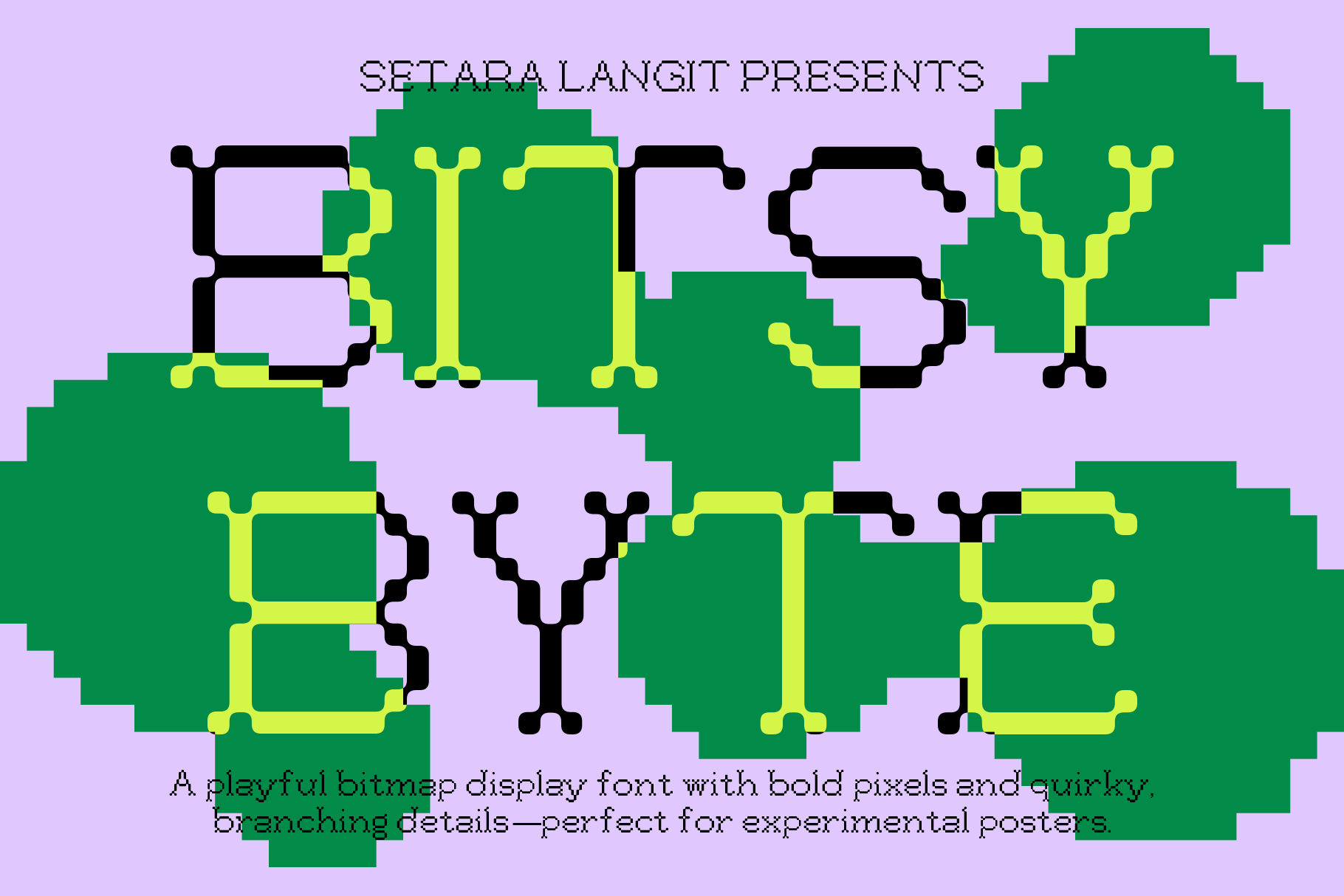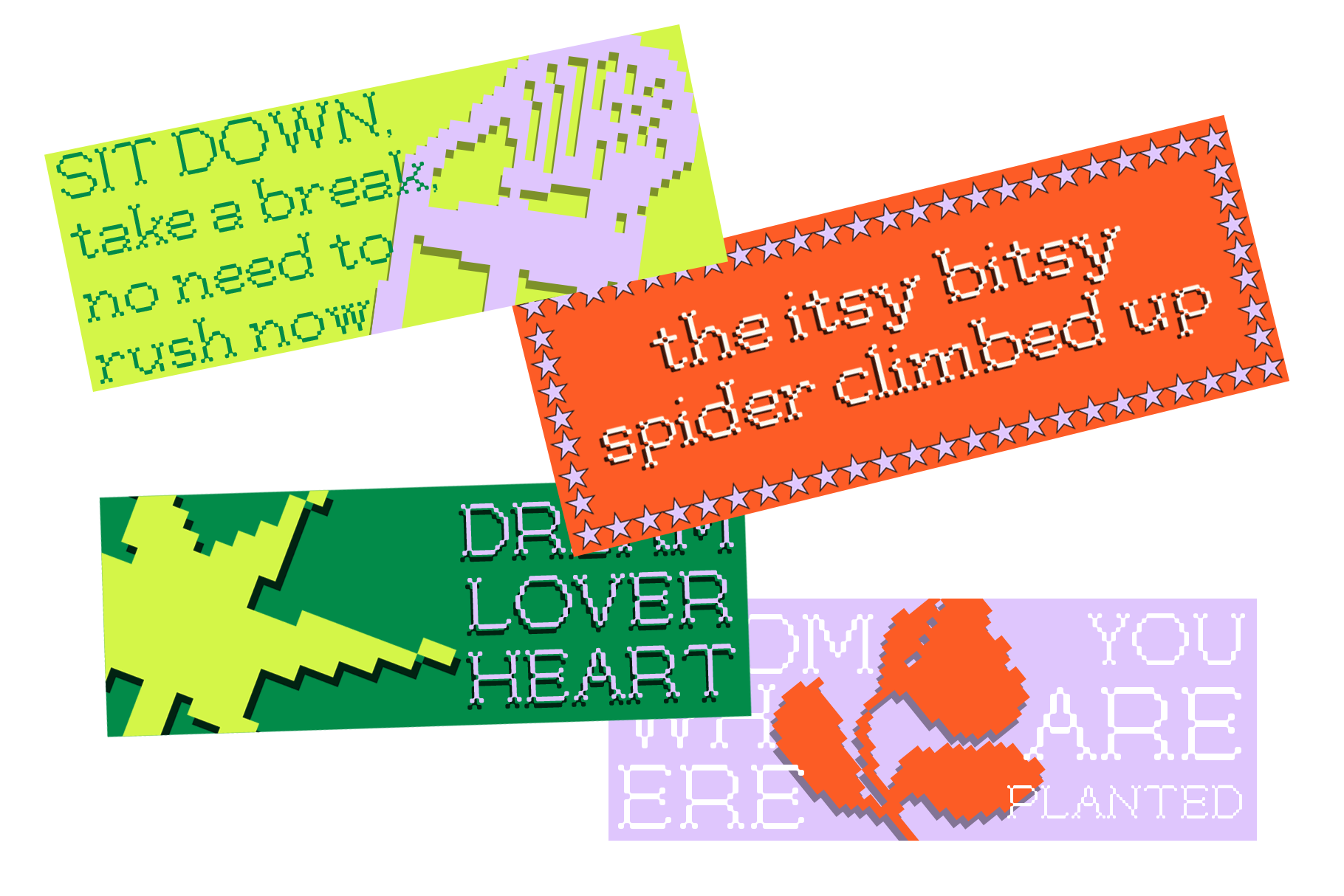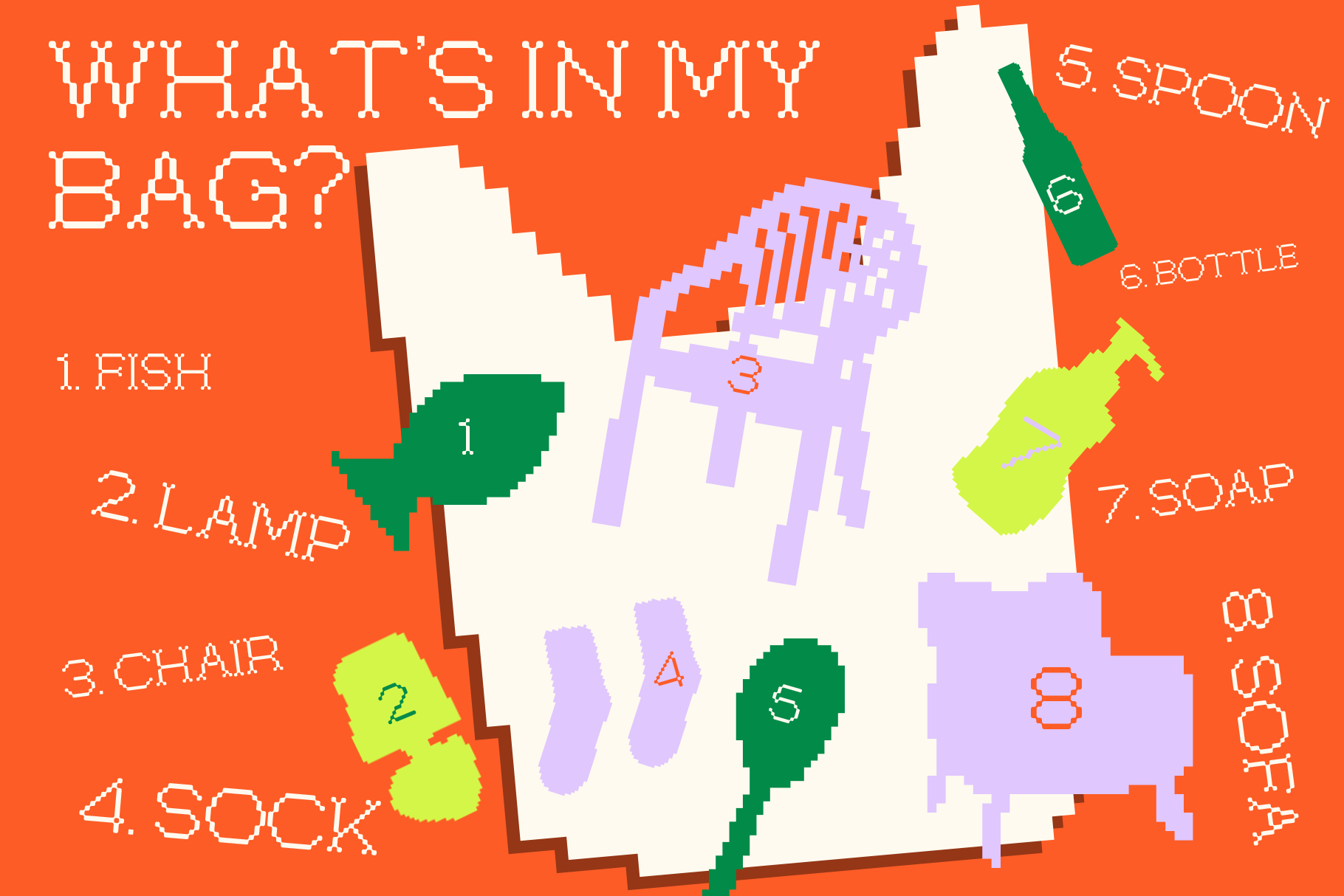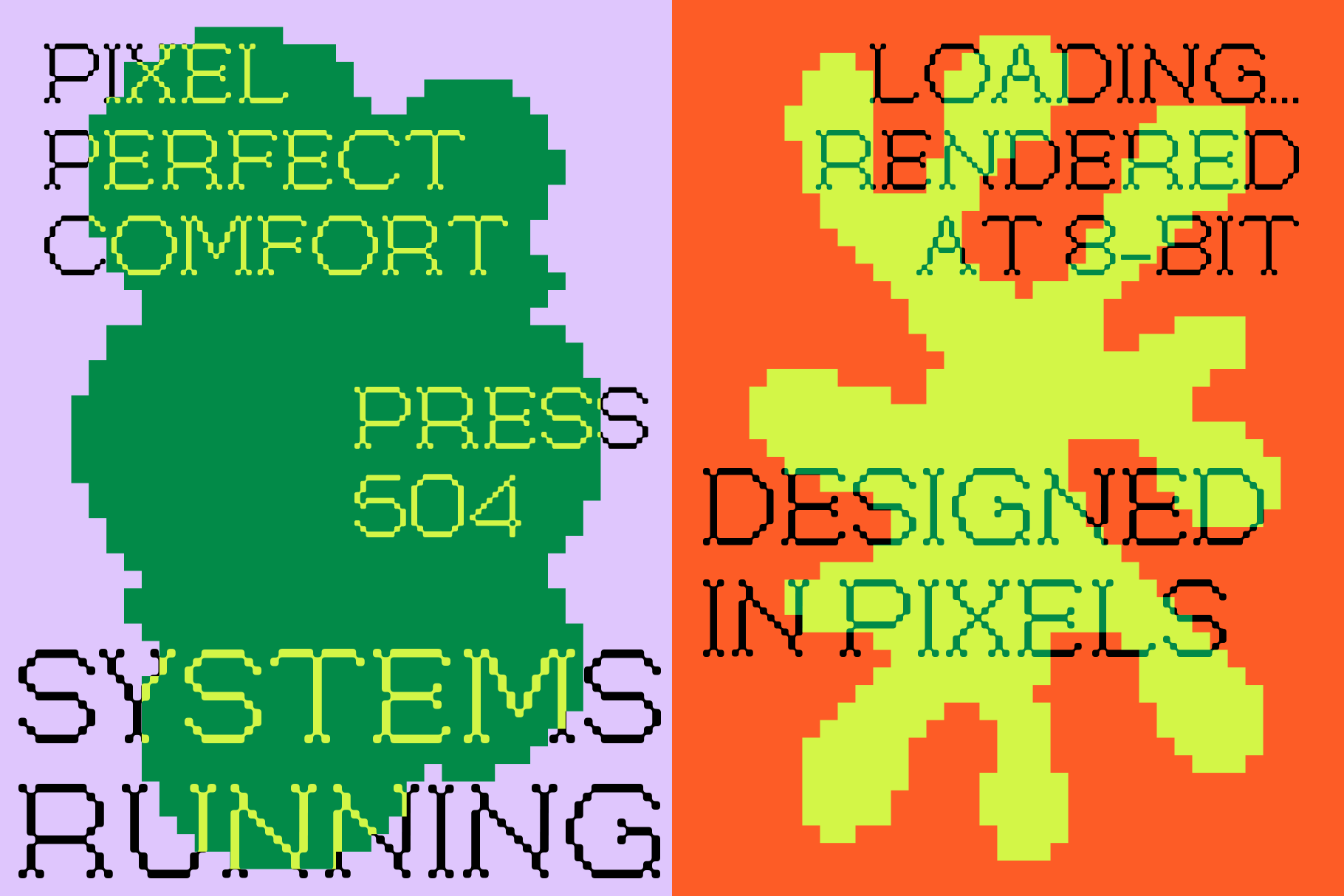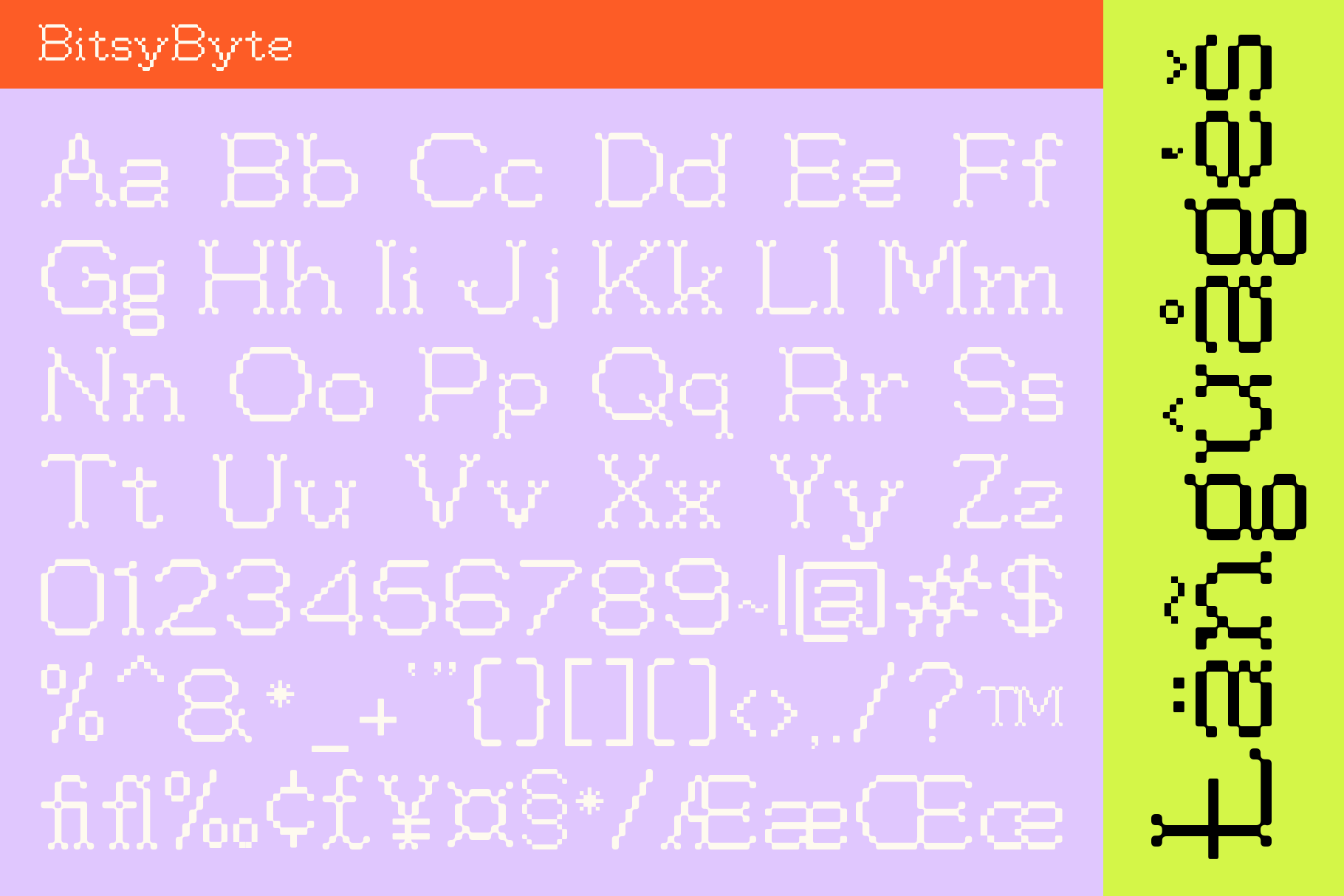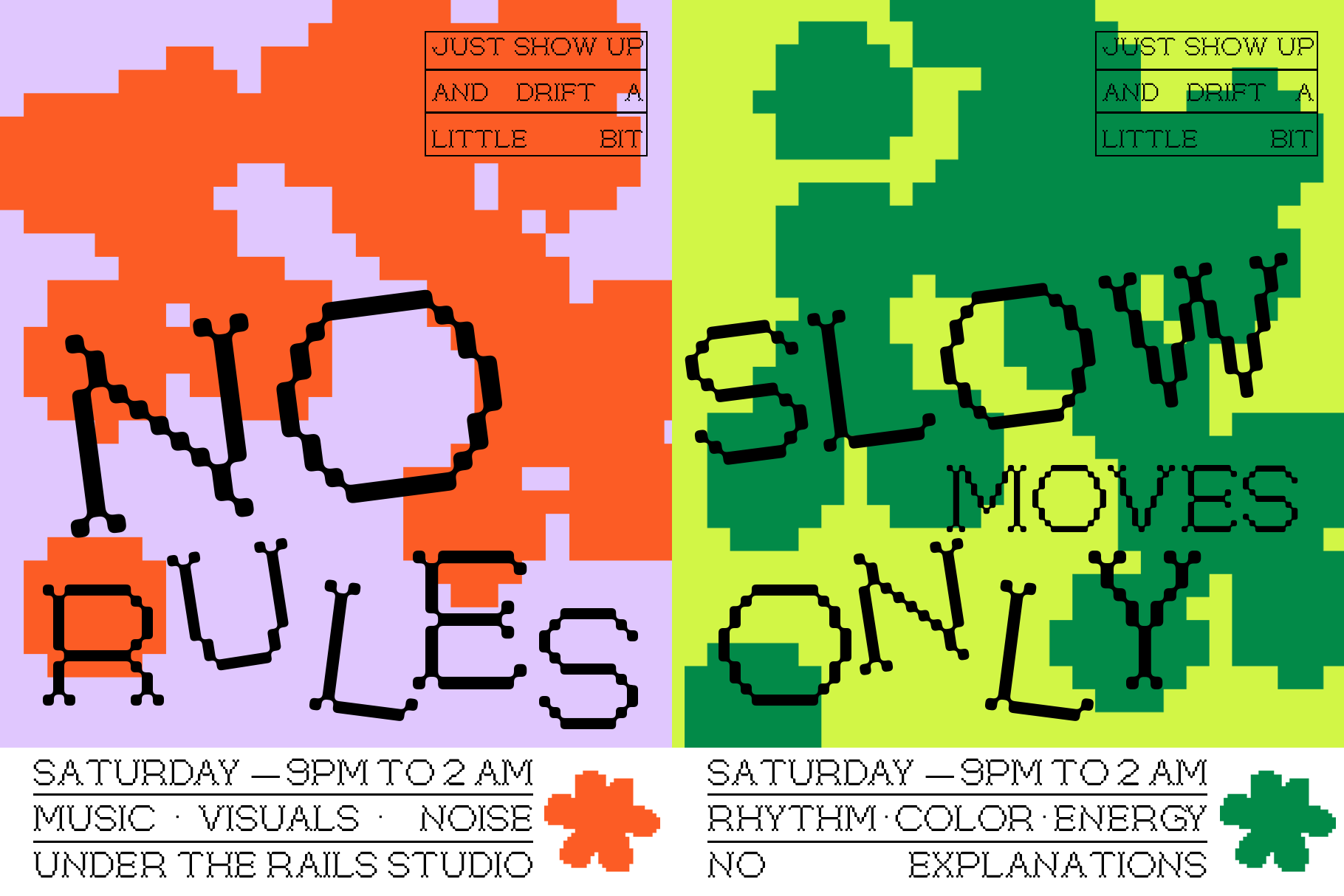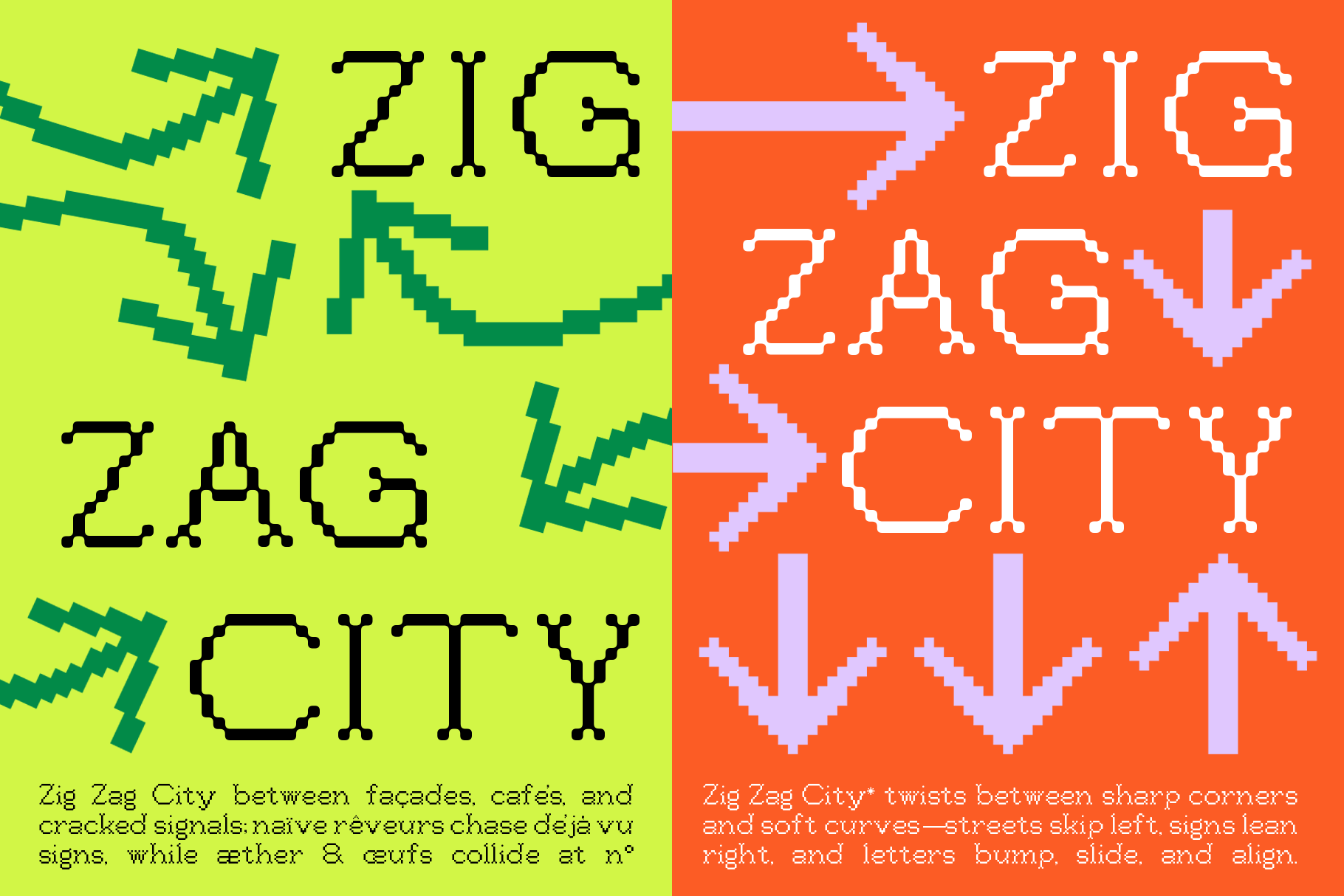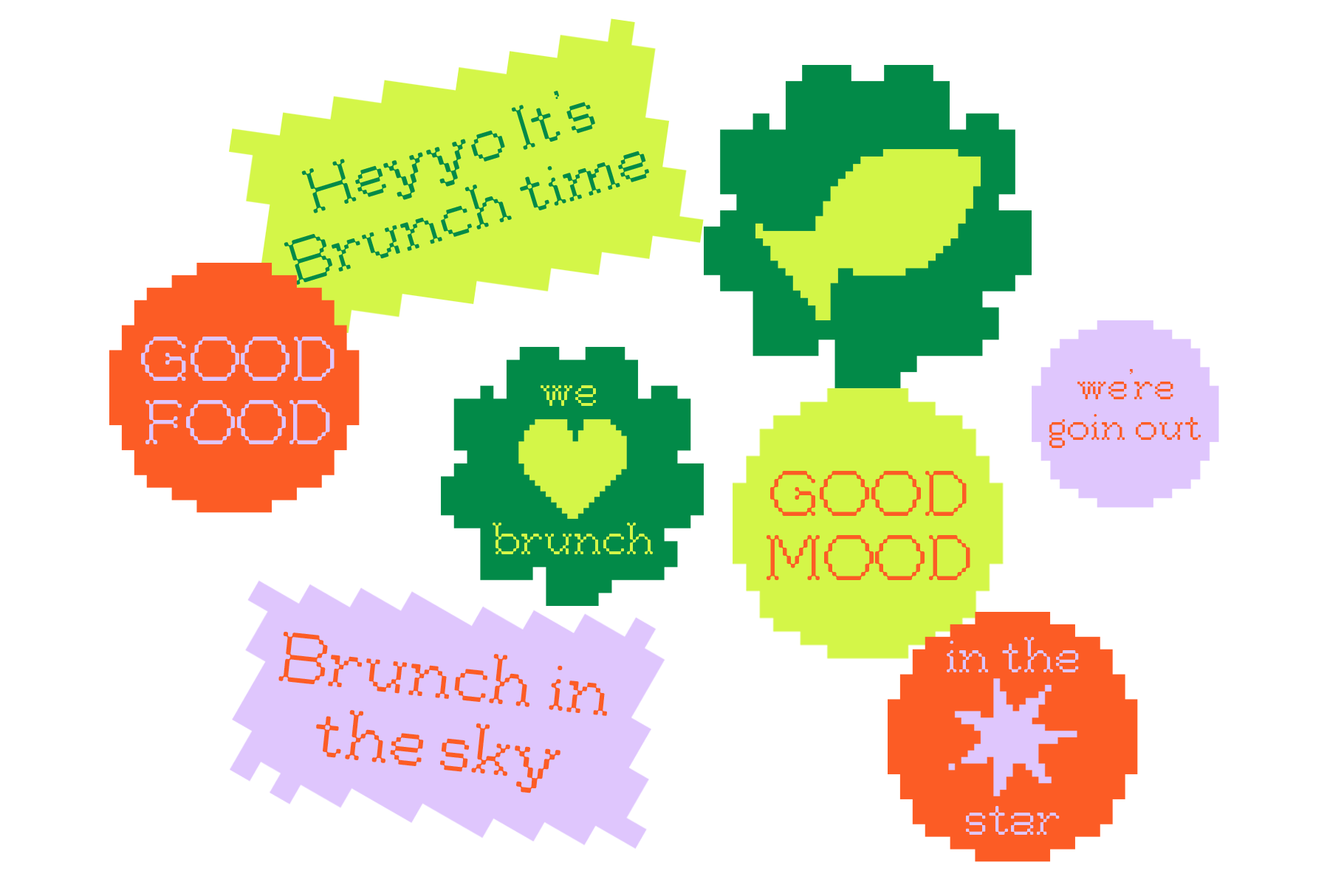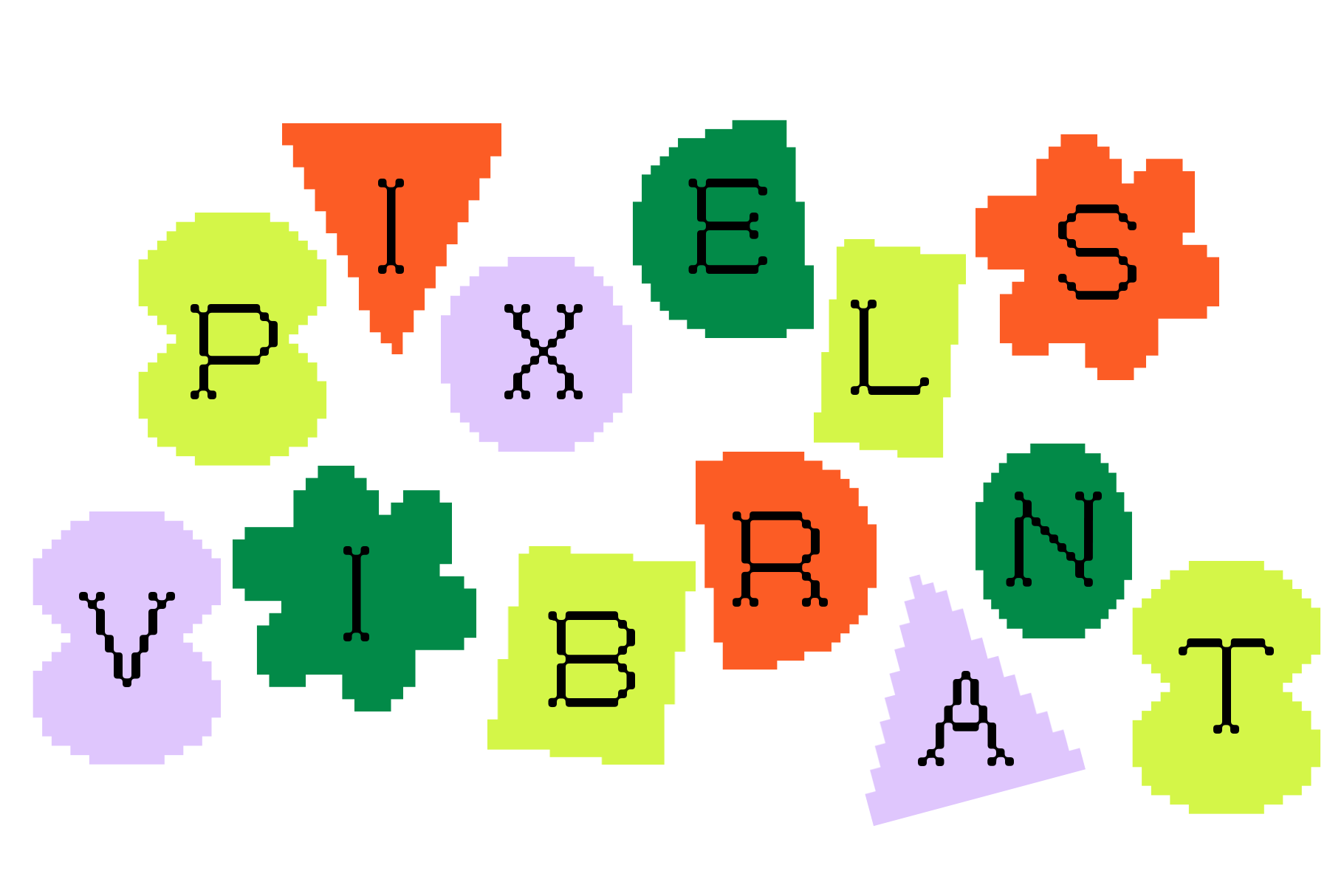
Bitsy Byte – Pixel Inspired Display Font
BitsyByte
Bitsy Byte builds each letter from chunky pixel blocks, then softens the joints with small rounded knuckles where strokes branch and merge — a pixel display font that reads as retro-technical without locking into a strict bitmap grid.
It holds up at poster scale, where the blocky construction reads as a deliberate graphic statement, and stays legible at smaller display sizes thanks to its simplified shapes. Use it for tech branding, game and app graphics, posters, packaging, and experimental editorial layouts.
- uppercase & lowercase;
- numerals & punctuation;
- ligatures;
- 235 glyphs total